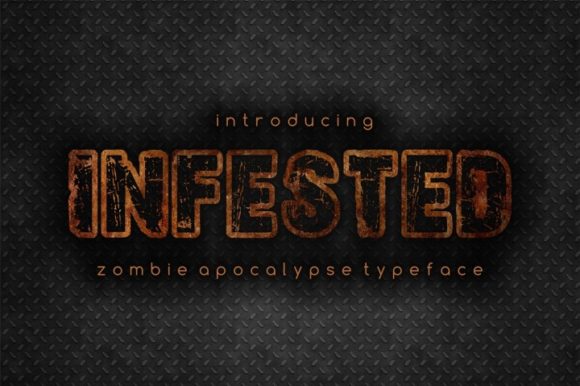
Are you ready for a zombie apocalypse typeface?
The Infested is a brutal, scratched font that just recovered after a zombie attack. It will give your designs a striking and unique look.
It’s ideal for street advertisements, carnival or Halloween-like events, service description designs, menu’s, and much more!